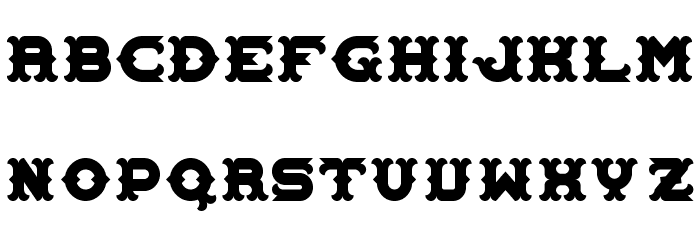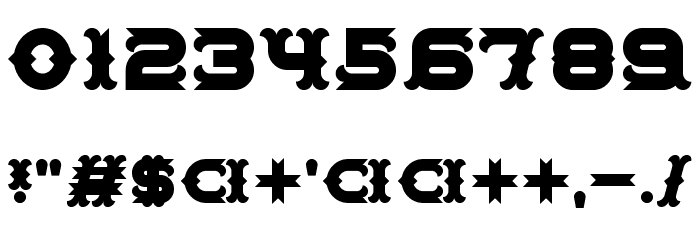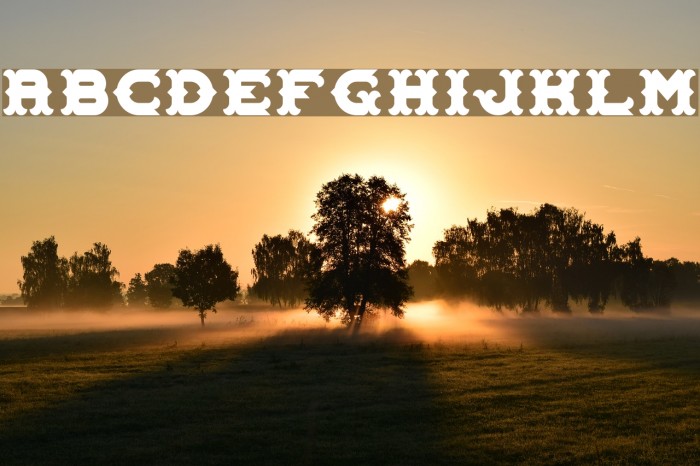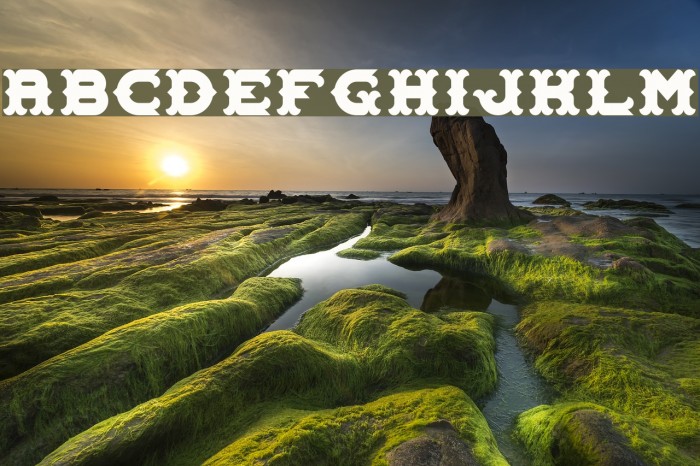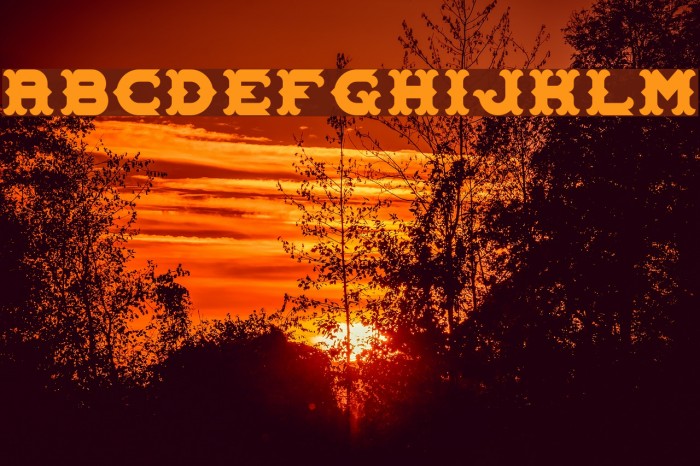
CarnivalCentenary Font
This font features a bold and decorative style with a unique flair that combines elements of traditional and modern design. The characters are heavily stylized with intricate details, creating a sense of movement and energy. The uppercase and lowercase letters maintain a consistent weight, while the numbers and special characters complement the overall aesthetic. The font's boldness and distinctiveness make it stand out, ideal for projects that require a strong visual impact.
A bold, decorative font with intricate details and a modern flair.
- Proposed Projects: Ideal for event posters, branding, logos, and any design requiring a bold statement.